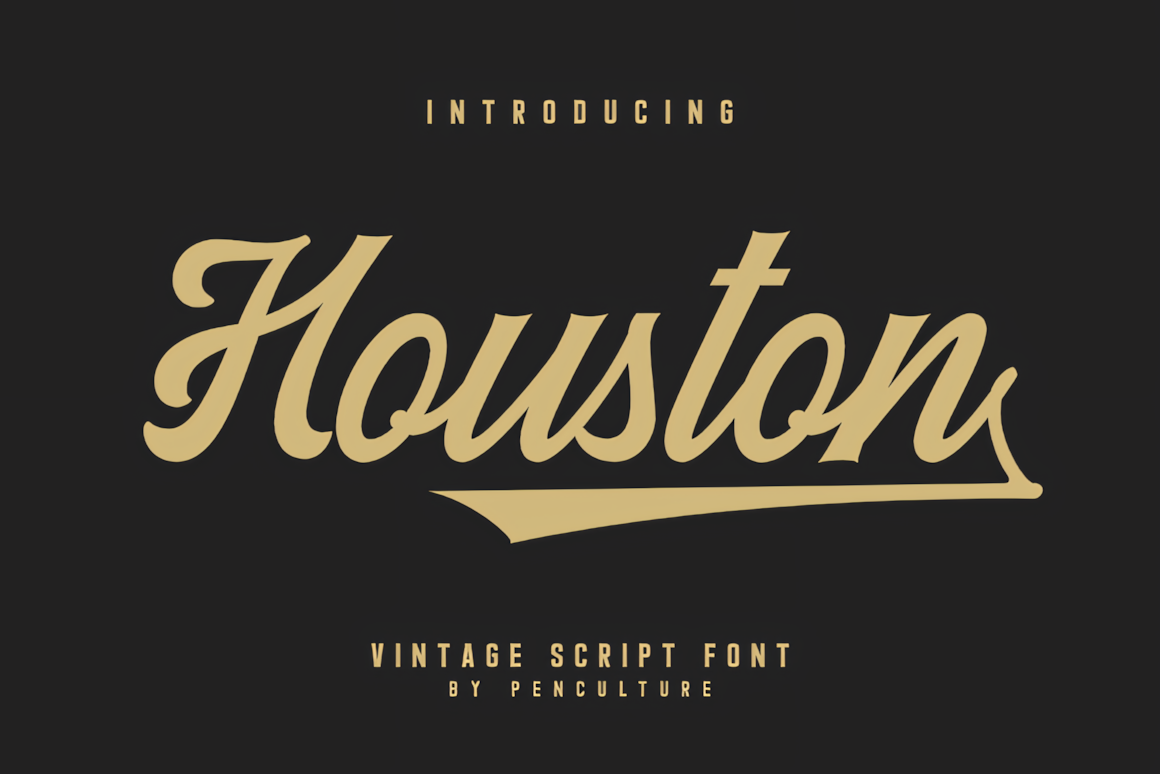
Houston Script Font is a delightful typeface that effortlessly captures the essence of playful childhood nostalgia while exuding a strong vintage charm. Its whimsical, handwritten style makes it an ideal choice for design projects aiming to evoke the iconic 90s aesthetic. Whether you’re crafting logos, posters, or social media graphics, Houston Script Font adds a touch of retro flair that feels both timeless and fresh. Perfect for designers seeking to infuse their work with a sense of fun and nostalgia, this font is a versatile tool to bring your creative visions to life.
Houston Script Font